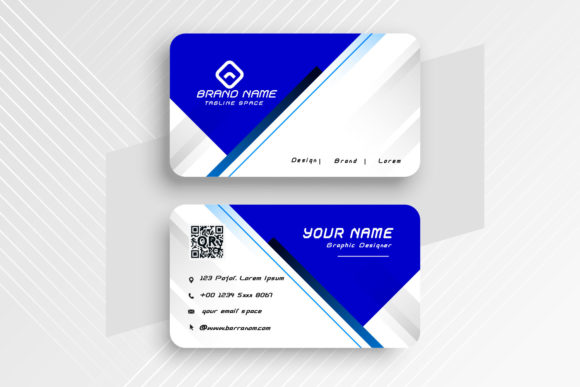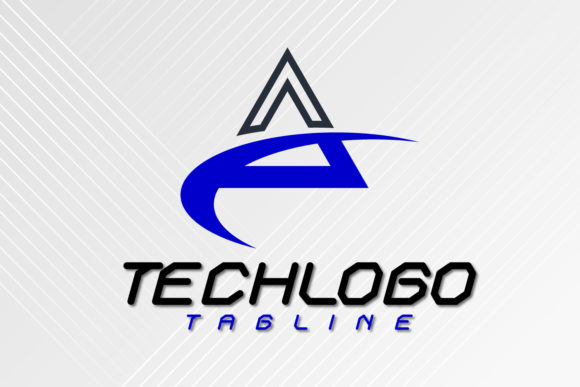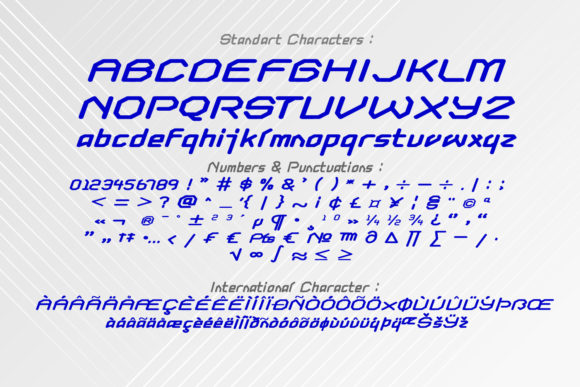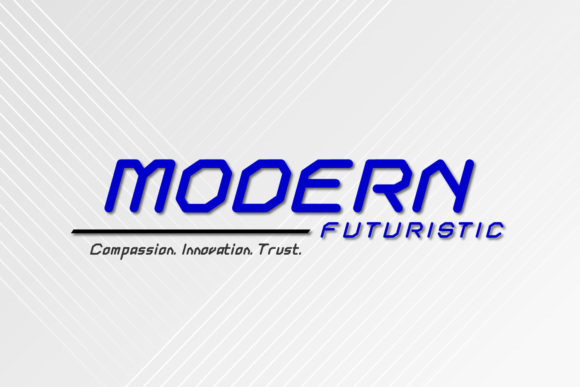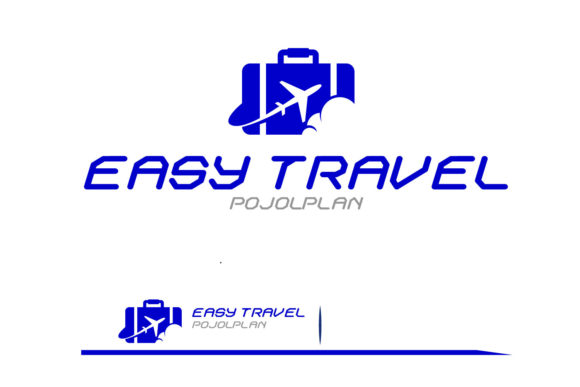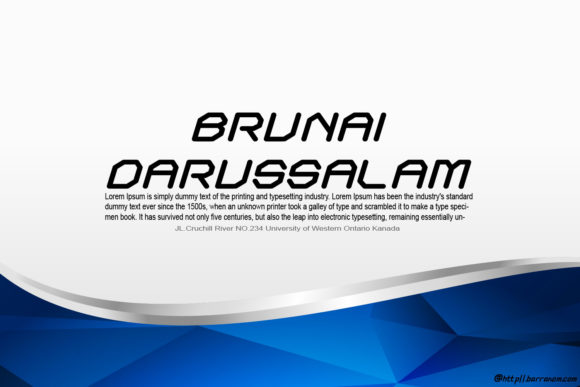
The Designer’s Delight: Uncovering the Charm of Barranom Font
I’ll never forget the time I was working on a project for a client who wanted a bold, eye-catching font to make their brand stand out. I scoured the internet, tried countless fonts, but nothing seemed quite right. That was until I stumbled upon Barranom Font. Its unique and stylish look instantly caught my attention, and I knew I had found the perfect fit. In this article, I’ll share my love for Barranom Font, its features, and how to make the most of it in your designs.
An Honest Review of Barranom Font
What I Love About Barranom Font
- ✨ Unique and stylish look: Barranom Font has an incredibly stylish look that will elevate your designs and make them stand out.
- ✅ Versatility: This font is incredibly versatile and can fit a wide pool of designs, from modern and sleek to elegant and sophisticated.
- 💡 Inspires creativity: Barranom Font’s unique design elements will inspire you to create spectacular designs that showcase your creativity.
While Barranom Font is an excellent choice for many designs, there are a few things to keep in mind:
- 🤔 Legibility at small sizes: Like many display fonts, Barranom may not be the best choice for body text or small font sizes, as it can be difficult to read.
- ⚠️ Glyph support: Some users have reported that the font may not support certain glyphs or special characters, so be sure to test it thoroughly before using it in your project.
The Story Behind Barranom Font
Barranom Font was designed with the goal of creating a unique and stylish display font that would inspire creativity and add a touch of elegance to any design. The designer drew inspiration from classic typography and modern design trends to create a font that’s both timeless and contemporary.
Q: What type of designs is Barranom Font best suited for?
A: Barranom Font is a versatile display font that’s perfect for a wide range of designs, including logos, branding, posters, and social media graphics.
Q: Is Barranom Font suitable for body text?
A: While Barranom Font is an excellent choice for display text, it may not be the best choice for body text or small font sizes, as it can be difficult to read.
Q: Is Barranom Font available in different weights and styles?
A: Yes, Barranom Font comes in different weights and styles, making it easy to use in a variety of design contexts.